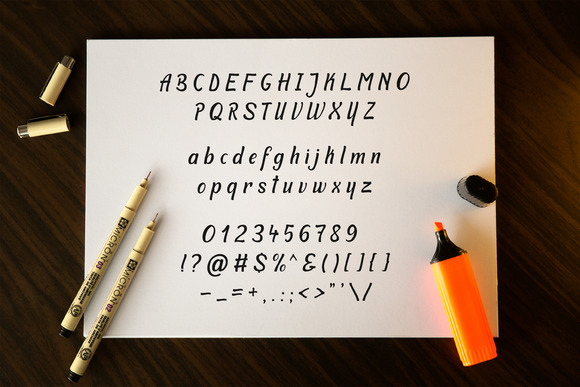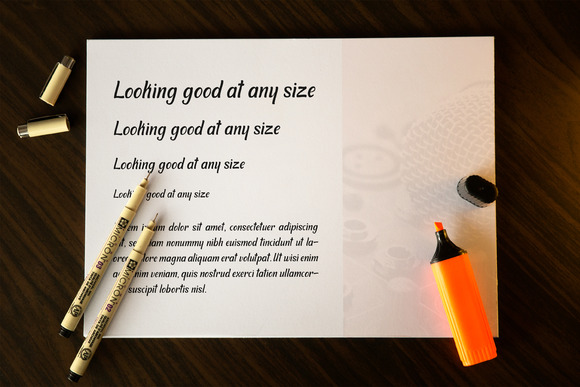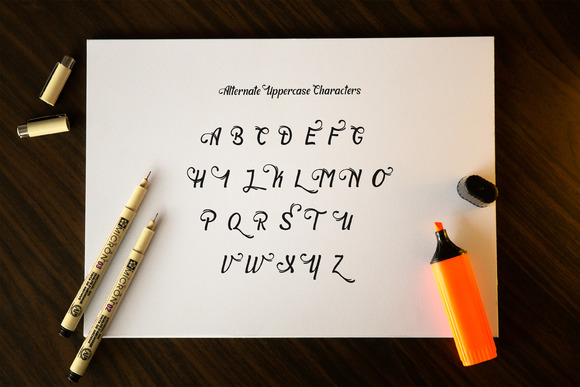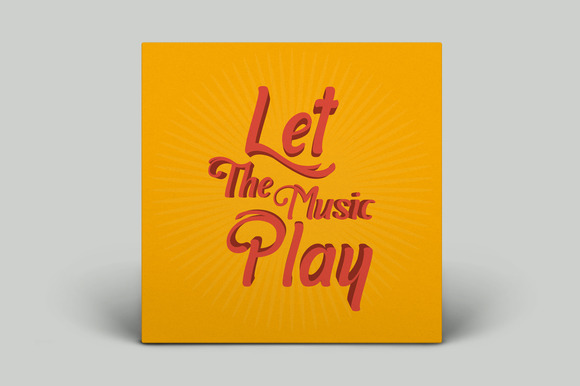
Symphony Font
About Symphony Font
This handcrafted font has a modern touch and can be used for various purposes such as headings, logos, badges, postcards, invitations, book covers, websites, and much more!